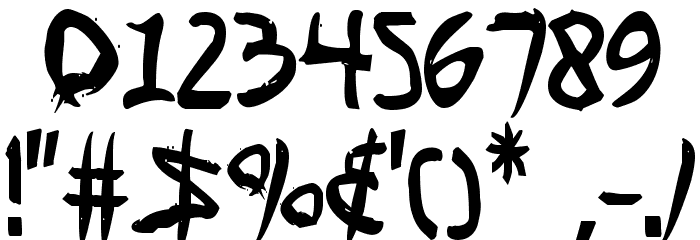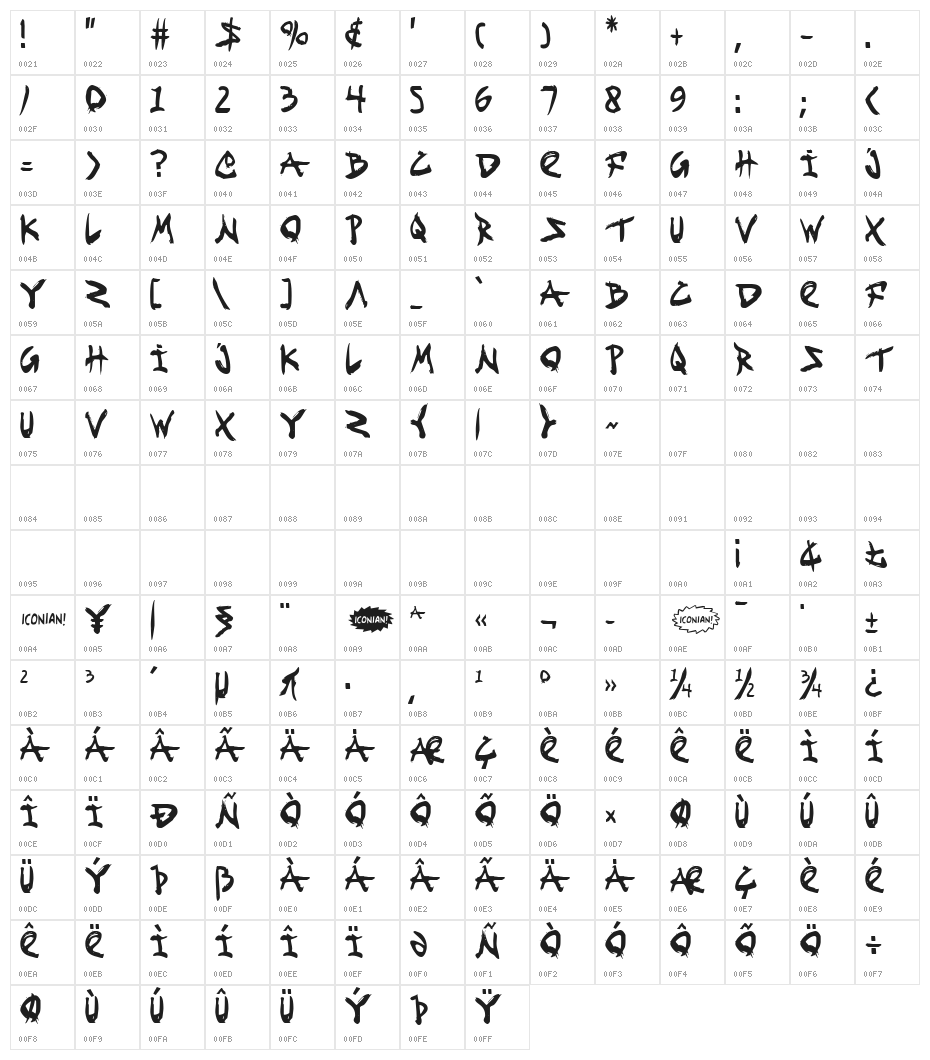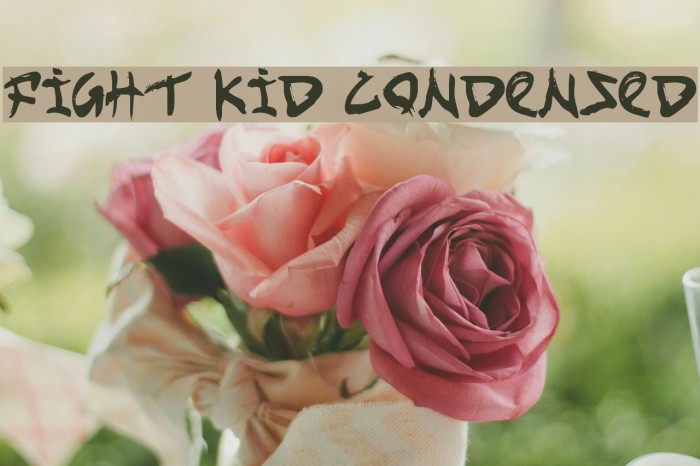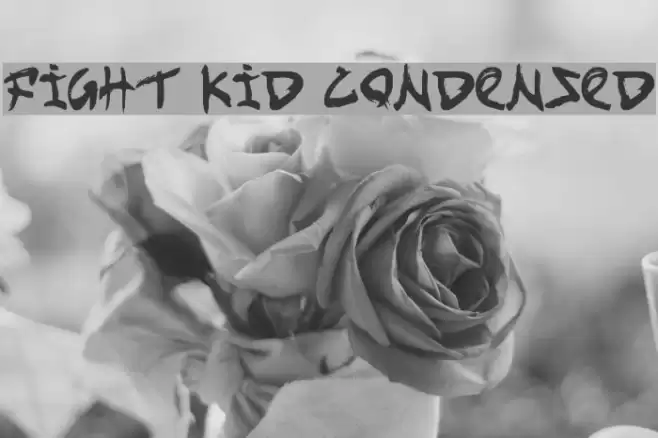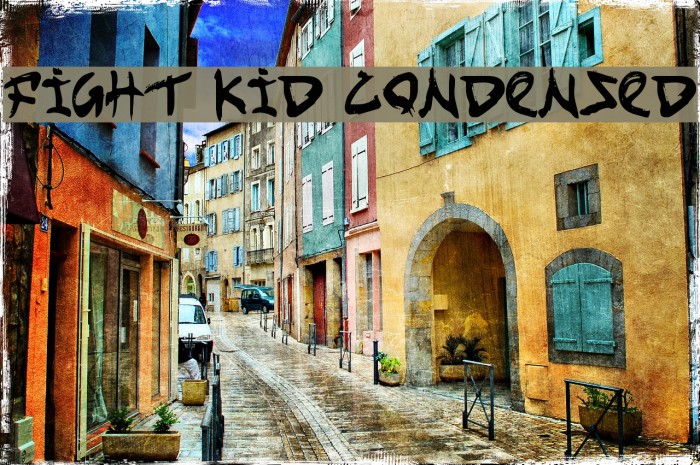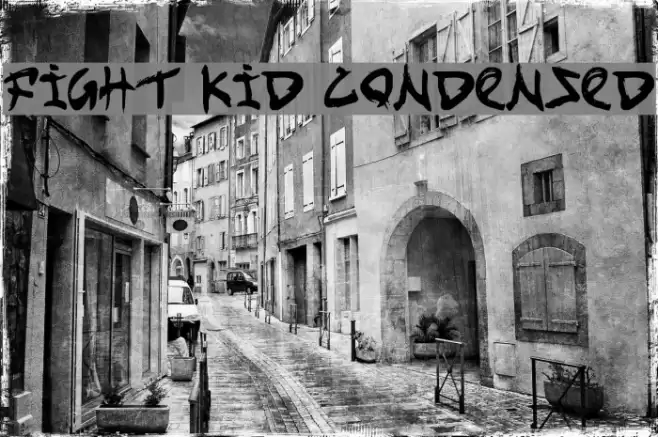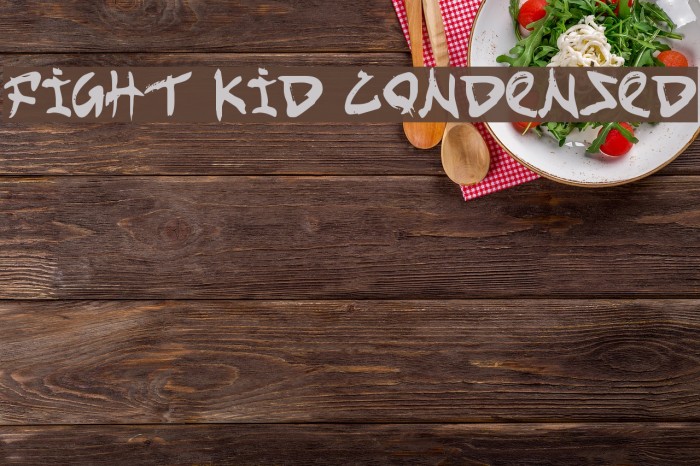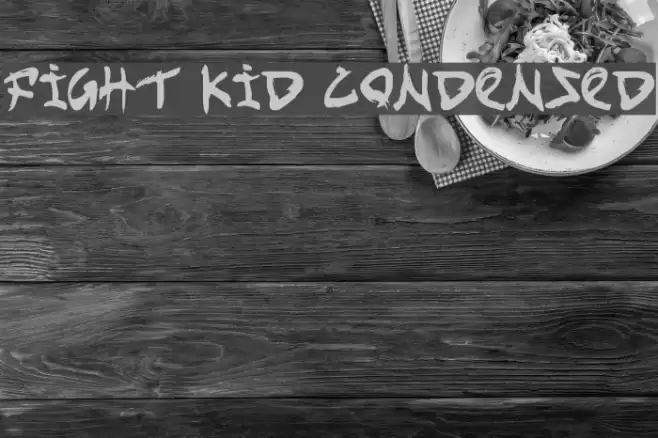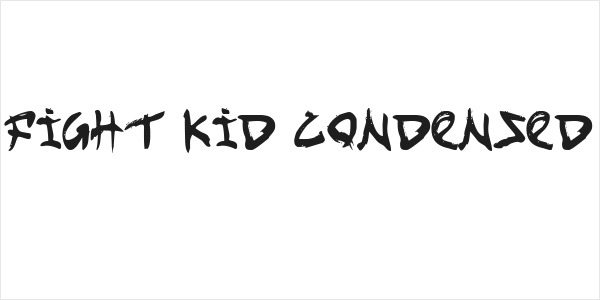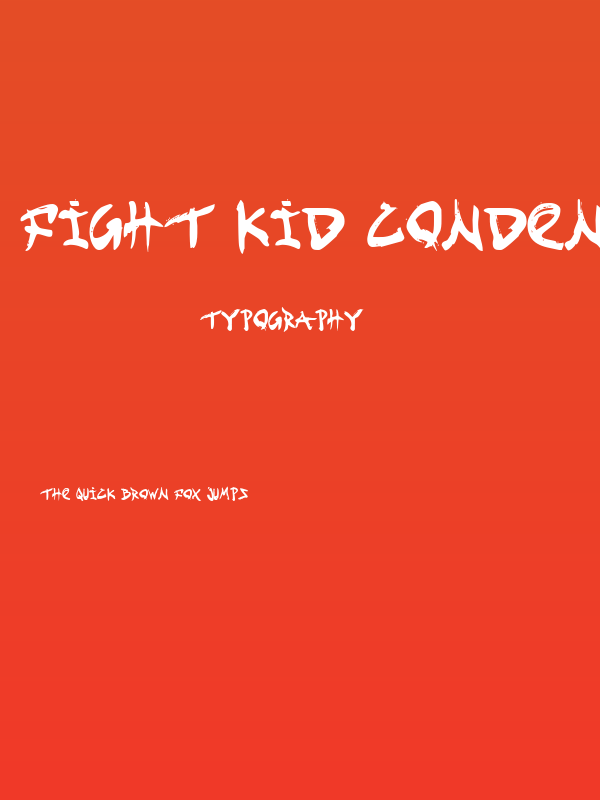
Fight Kid Condensed Font
Fight Kid Condensed Description
This font features a bold and aggressive style, characterized by its brush-like strokes and dynamic, energetic appearance. The letters have a hand-painted look, with uneven edges and a sense of movement that suggests action and intensity. The uppercase and lowercase letters maintain a consistent style, while the numbers and special characters complement the overall aesthetic. The condensed width of the characters enhances the compact and impactful nature of the design, making it suitable for attention-grabbing headlines and displays.
| Proposed Projects | Ideal for projects that require a strong visual impact, such as posters, album covers, sports branding, and streetwear designs. |